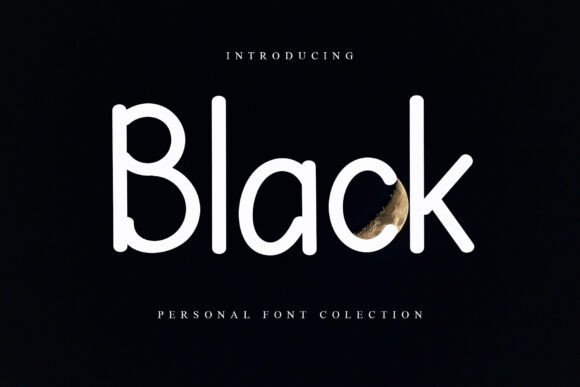
The Power of Black Font: Elevate Your Designs with Elegance
I’ll never forget the time I was working on a wedding invitation project, and my client asked for a font that exuded elegance and sophistication. I scoured the internet, trying out font after font, but nothing seemed quite right. That was until I stumbled upon Black Font. ✨ It was love at first sight! The unique and elegant design of Black Font instantly captured the essence of the occasion, and I knew I had found the perfect fit.
An Honest Review of Black Font
- ✨ Unique and elegant design that’s perfect for special occasions
- ✅ Professionally crafted with a hand touch for a personal feel
- ✅ Suitable for a wide range of projects, from wedding invitations to school assignments
While Black Font is an excellent choice for many projects, there are a few things to keep in mind 🤔:
- ⚠️ Limited availability of stylistic alternates, which may limit its use in certain designs
- ⚠️ May not be the best choice for body text, as it’s primarily designed for headings and titles
The Story Behind Black Font
Black Font was designed with the intention of creating a unique and elegant font that would cater to the needs of designers and crafters. The designer, inspired by classic typography and modern trends, crafted Black Font with a professional hand touch to give it a personal feel.
| Font Name | Black Font |
| Author | GiaLetter |
| What is Black Font best used for? | Black Font is perfect for special occasions, such as wedding invitations, birthday parties, and other celebrations. It’s also suitable for school assignments, creative projects, and work projects. |